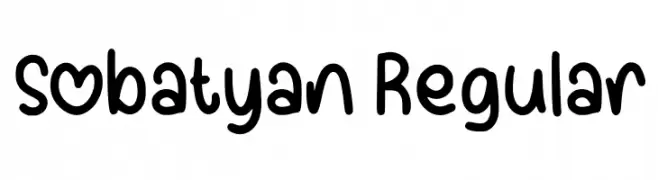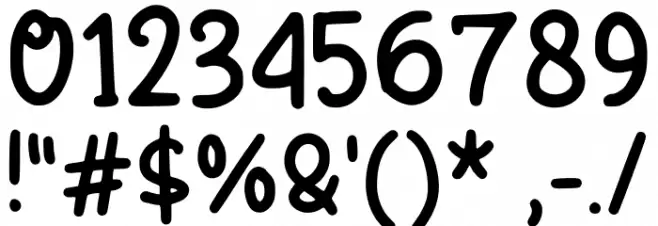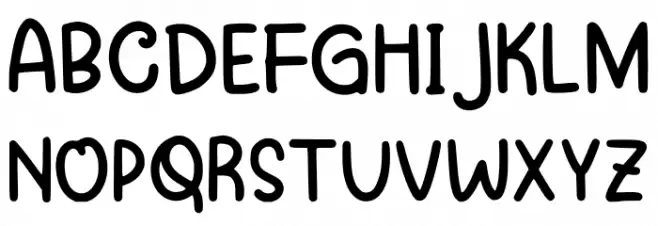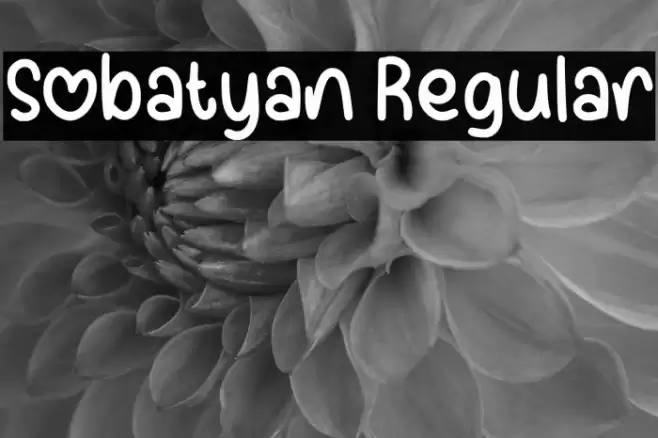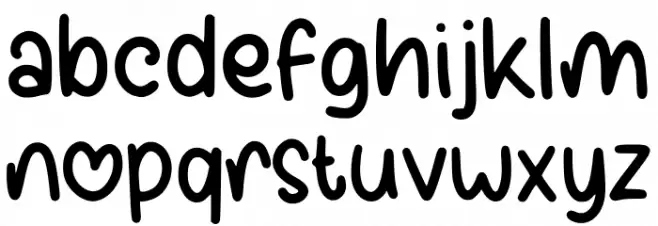
Sobatyan Regular Font
Sobatyan Regular Description
A playful, rounded, handwritten style font with a casual and friendly appearance.
| Overall Style | Casual, Playful, Friendly |
| Use Case | Headlines, Body text, Logos, Invitations |